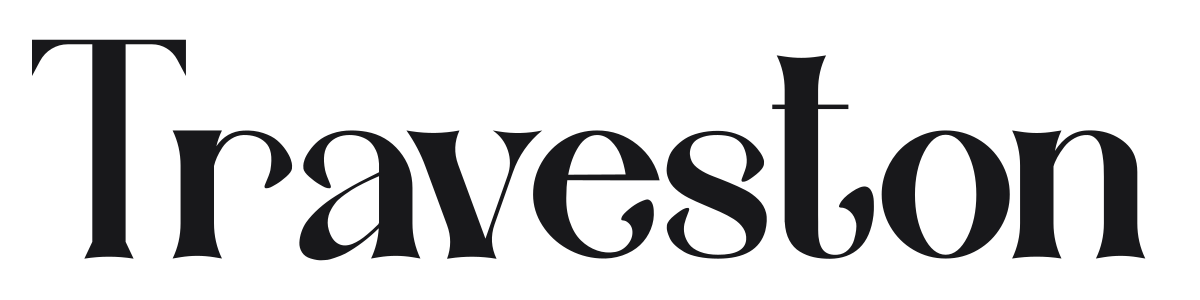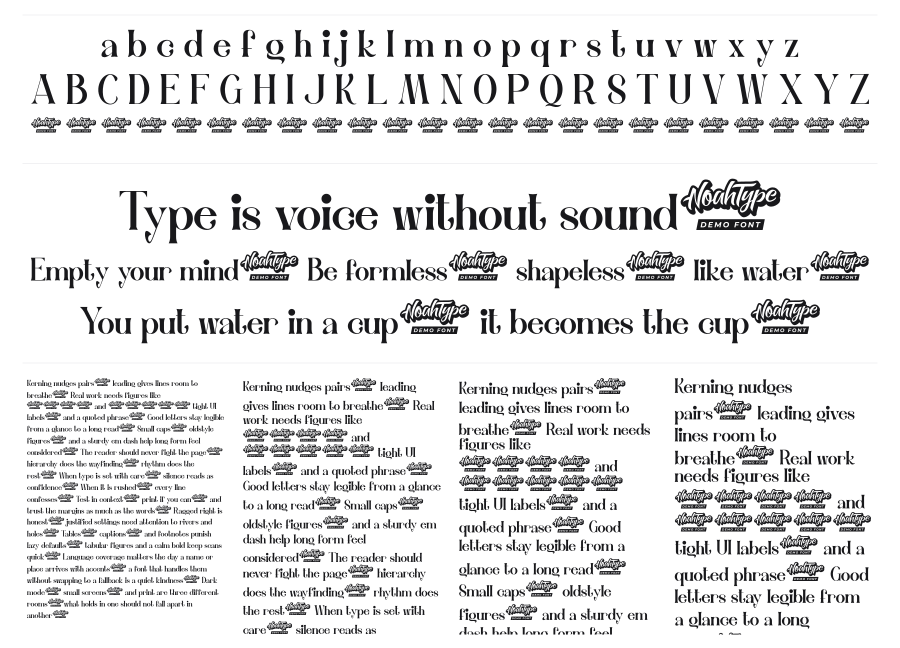
Traveston
by Noah Type · Website
Traveston is a bold didone serif with extreme stroke contrast and wide, commanding proportions. Large ball terminals on lowercase letters add a decorative flourish that pushes it firmly into fashion-editorial territory. It carries the DNA of Bodoni and Didot but with a heavier, more contemporary attitude.